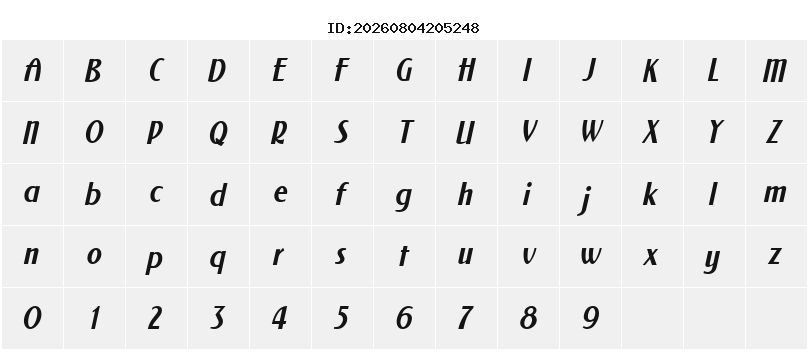
NewForum Preview
• Font Name: NewForum
• Font ID: Alts:NewForum Italic
• Full Font Name: NewForum Italic
• Version: 1.0 Mon Apr 12 16:20:51 1993
• PostScript Name: NewForum-Italic
About NewForum.ttf
NewForum.ttf is a modern, elegant sans-serif font designed for ultimate readability and visual harmony. Perfect for branding, headlines, web design, and print materials.